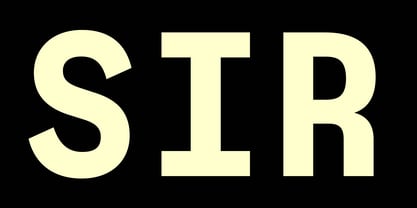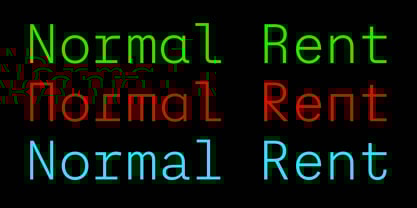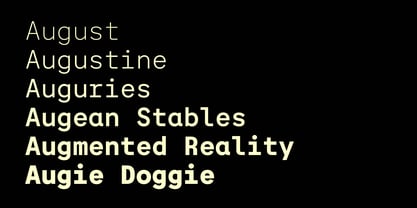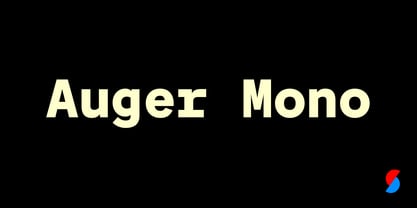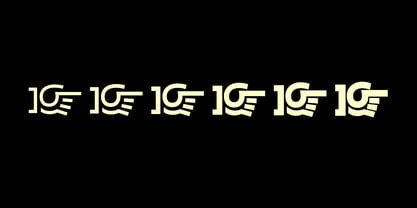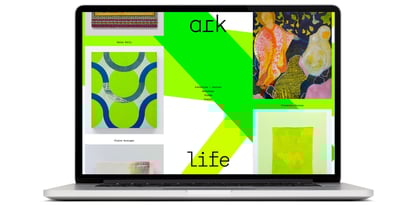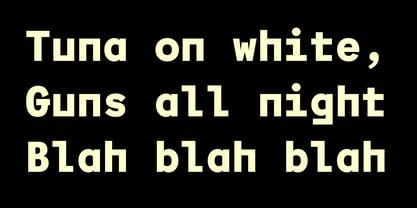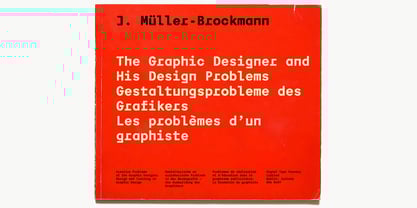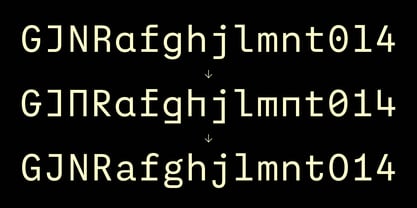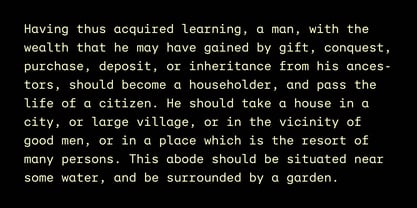
Auger Mono
by Signal Type Foundry
The Auger Mono Font Family was designed by Max Phillips, Seán Mongey and published by Signal Type Foundry. Auger Mono contains 6 styles and family package options. More about this family
When two roads diverge in a wood, Auger Mono takes both. An array of alternates gives it unusual stylistic flexibility for a fixed-width typeface, ranging from plain and practical to aggressively geometric. Influences include old Leroy lettering templates, Fortunato Depero’s Bolted Book, and classic grotesk jobbing faces. But even at its quirkiest, Auger Mono’s open proportions and workmanlike construction keep it balanced and readable. Six weights ranging from a gossamer X-Light to a beefy Black provide additional versatility.
Designers: Max Phillips, Seán Mongey
Foundry: Signal Type Foundry